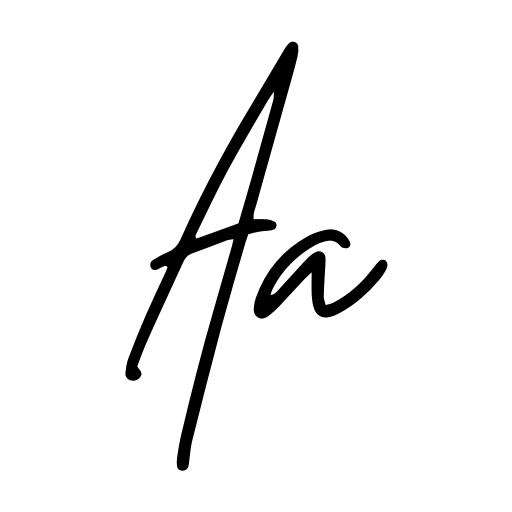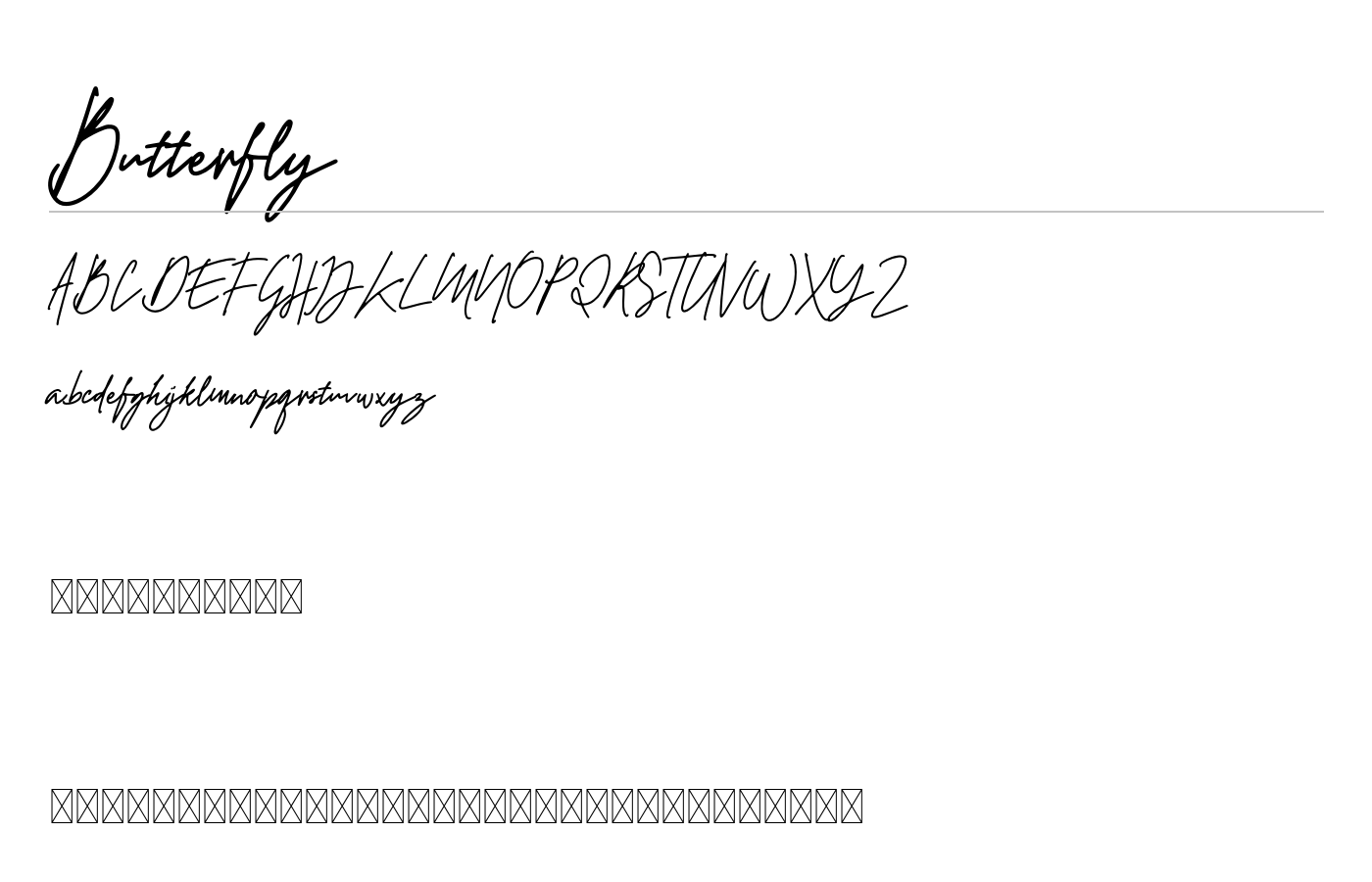
Butterfly Font is an elegant and delicate script typeface with a handwritten, flowing style that brings a personal, artistic touch to any design. Its thin, slightly irregular strokes give it a light and airy feel, making it perfect for invitations, branding, and creative projects that seek a graceful and sophisticated look. This font works best in decorative and headline uses where its expressive personality can truly shine.
Butterfly Font
About Butterfly Font
| Font family | Butterfly Font |
| Designer | Ana Natalia |